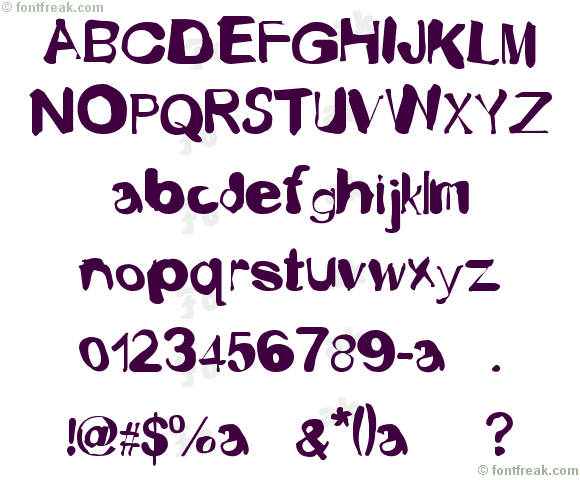
Fusty Luggs
Fusty Luggs, designed by Uddi Uddi Fonts in 1998, is a distinctive display font that captures a whimsical and playful essence. This font belongs to the decorative category, characterized by its unique, hand-drawn appearance that exudes personality and charm. The strokes are uneven, giving it a casual and approachable feel, while the varying stroke weights add an element of excitement. The spacing is generous, allowing the letters to breathe and enhancing readability, making it an excellent choice for eye-catching designs.
Fusty Luggs is particularly suited for a variety of creative applications. It shines in wedding invitations where its quirky style can set a fun, informal tone. Additionally, restaurant menus can benefit from its lively character, making the dining experience feel more inviting. It's also perfect for movie posters aimed at a younger audience, as the font's playful nature can attract attention and convey a sense of adventure. For content creators, this font is ideal for social media graphics or blog headers, where a touch of whimsy can enhance engagement and brand personality.
The target audience for Fusty Luggs includes graphic designers seeking to bring a unique flair to their projects, small business owners looking for an engaging way to communicate with customers, and content creators aiming to add a creative touch to their digital presence.
What makes Fusty Luggs stand out is its ability to blend fun with functionality. This font brings a delightful, informal energy to any design, making it memorable and appealing. With the Fusty Luggs font free download, designers and creatives can effortlessly incorporate this captivating typeface into their work, ensuring their projects resonate with a sense of creativity and joy.